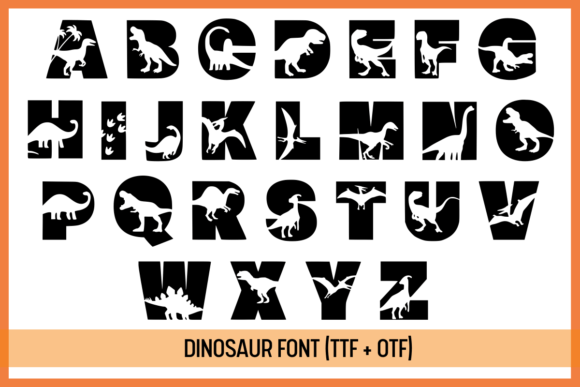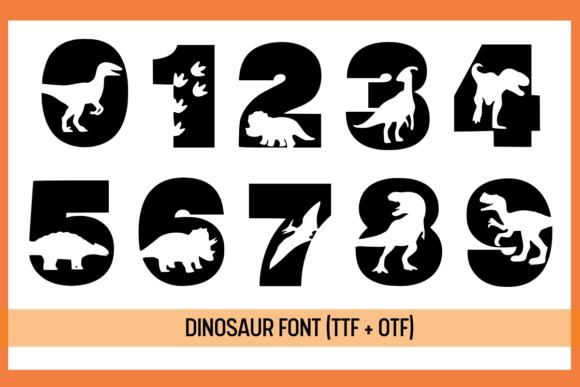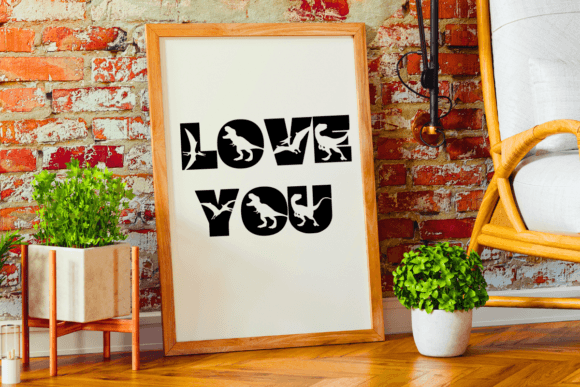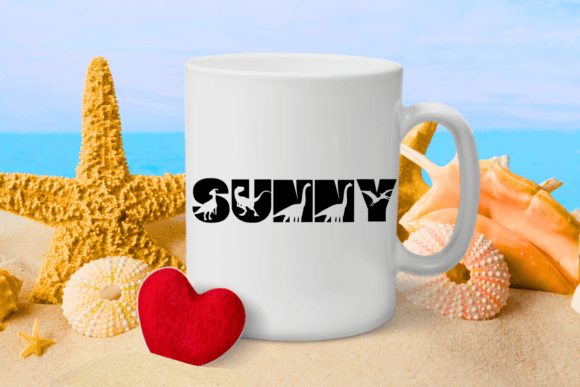
Dinosaur Font: Unleash the Prehistoric Power in Your Designs
Are you a designer, crafty person, or simply a dinosaur enthusiast looking for a unique and exciting font to add to your collection? Look no further than the Dinosaur Font! This big, fancy font is not only strong and adventurous but also packed with intricate details that will transport you back to the age of the ancient giants. In this article, we’ll dive into the fascinating world of Dinosaur Font, exploring its features, uses, and the creative possibilities it offers.
The Roar of Creativity: What is Dinosaur Font?
“Dinosaur” is a big, fancy font that looks strong and adventurous. Inside the letters, there are shapes of dinosaurs, like T-Rexes and Stegosauruses. It’s like the letters are hiding these ancient creatures inside them, making them really cool to look at! This innovative font design combines typography with illustrations of prehistoric creatures, creating a visually striking effect that is sure to capture attention.
Features of Dinosaur Font
The Dinosaur Font boasts several exciting features that make it a standout in the world of typography:
- Embedded dinosaur illustrations: Each letter contains a unique dinosaur shape, ranging from the mighty T-Rex to the gentle Stegosaurus.
- Strong and adventurous design: The font’s bold and rugged appearance makes it perfect for designs that require a sense of power and excitement.
- Versatility: The Dinosaur Font can be used in a wide range of projects, from children’s books and educational materials to logos, posters, and craft projects.
Uses of Dinosaur Font
The Dinosaur Font is an incredibly versatile font that can be used in various design projects, including:
- Children’s books and educational materials: Bring prehistoric creatures to life in storybooks, textbooks, and educational resources.
- Logos and branding: Create a memorable and impactful logo for your business or product with a dinosaur-themed twist.
- Posters and flyers: Design eye-catching posters and flyers for events, exhibitions, or promotions with a prehistoric flair.
- Craft projects: Use the Dinosaur Font to add a creative touch to craft projects, such as making dinosaur-themed cards, gift tags, or scrapbooking pages.
To make the most of the Dinosaur Font, consider the following tips:
- Experiment with colors and textures: Add depth and visual interest to your designs by combining the font with different colors, textures, and patterns.
- Mix and match letters: Create unique and playful combinations by mixing and matching letters with different dinosaur illustrations.
- Use it in combination with other fonts: Pair the Dinosaur Font with other fonts to create visually appealing contrasts and add hierarchy to your designs.
The Dinosaur Font is a one-of-a-kind typographic treasure that is sure to delight designers, crafters, and dinosaur enthusiasts alike. With its embedded dinosaur illustrations, strong and adventurous design, and versatility, this font offers a world of creative possibilities. Whether you’re looking to add a prehistoric touch to your designs or simply want to unleash your inner child, the Dinosaur Font is an exciting addition to any creative project.